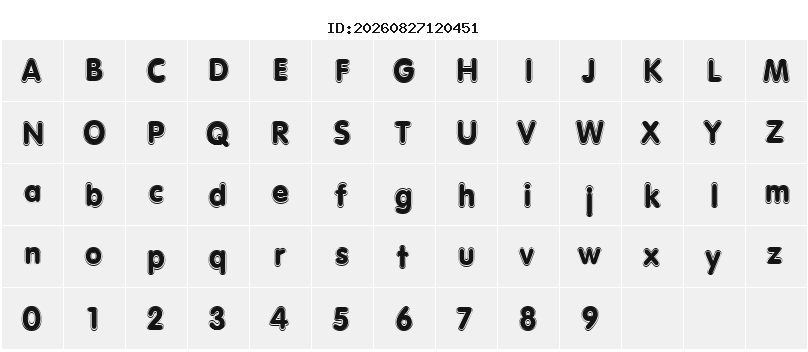
210-CAI978 Preview
About 210-CAI978.ttf
210-CAI978.ttf is a modern, elegant sans-serif font designed for ultimate readability and visual harmony. Perfect for branding, headlines, web design, and print materials.